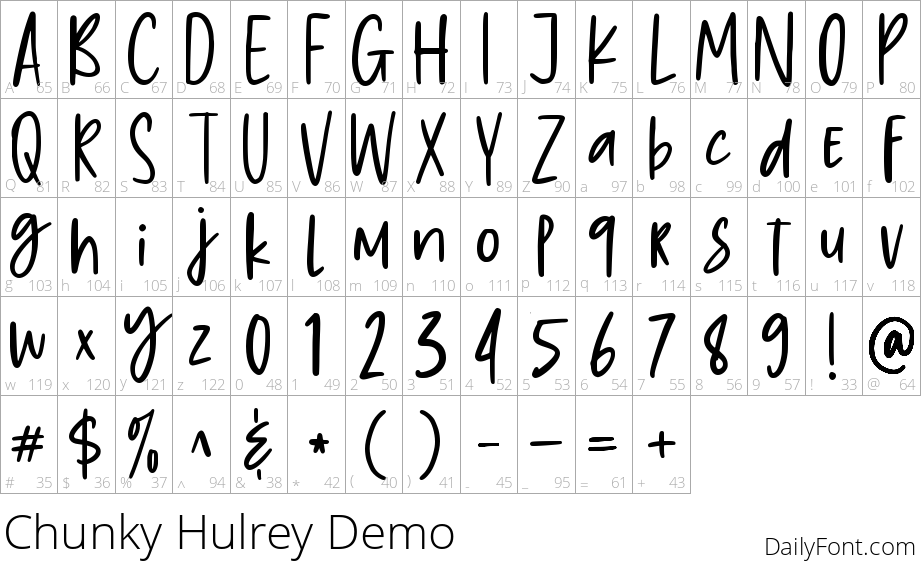
Chunky Hulrey
Chunky Hulrey is a laid-back and friendly handwritten font, perfect for designers looking to make a memorable impact. With its quirky and inviting style, this font stands out in any application, whether for branding, logos, or inspirational quotes. Each character is designed with care, boasting unique features that bring personality to your typography.
Ideal for both digital and print media, Chunky Hulrey adds warmth and character to your projects, appealing to audiences of all ages. Its versatility allows it to shine in a variety of settings, from casual social media graphics to elegant event invitations. Embrace the charm of handcrafted design with Chunky Hulrey, and let your creativity soar. Discover how this delightful font can transform your work and engage your audience like never before!